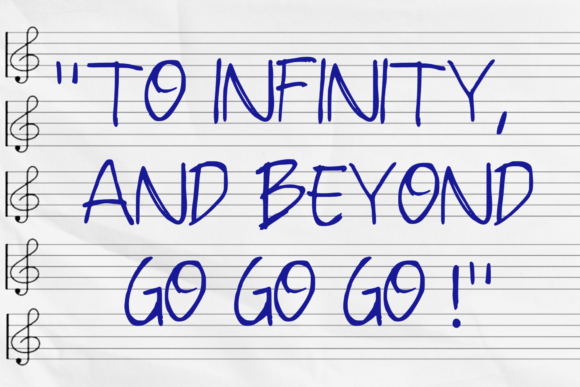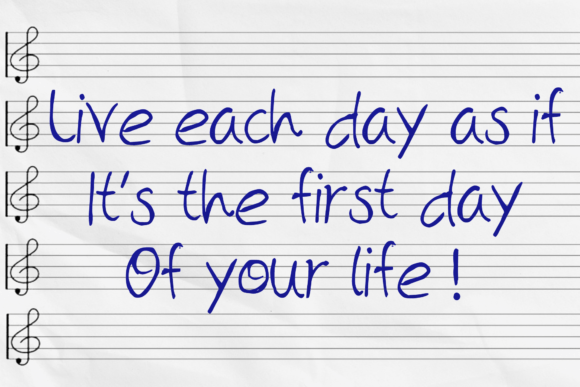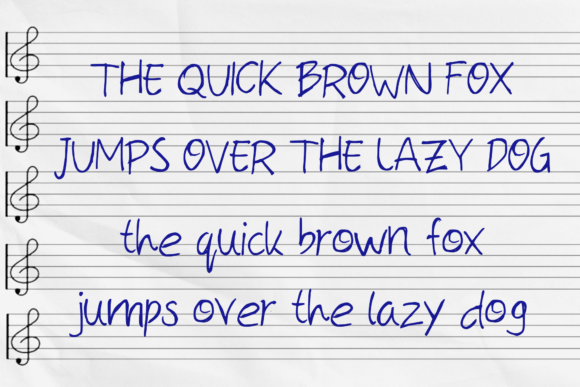
Introduction to Jazz Pen Font
Jazz Pen is a fun handwritten font that you can use for anything ranging from regular typing notes to t-shirts, kids’ book designs, greeting cards, stickers, posters, or anything that needs a casual touch.
Fall in love with its incredible style and use it to create lovely designs .
Jazz Pen Font offers exceptional quality and versatility, making it a valuable addition to your design toolkit. Whether you’re creating for personal projects or commercial use, Jazz Pen Font delivers professional results.